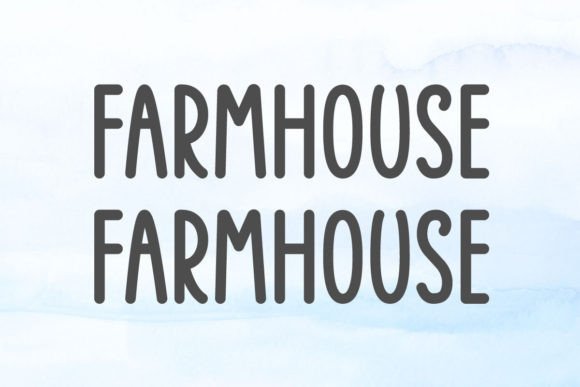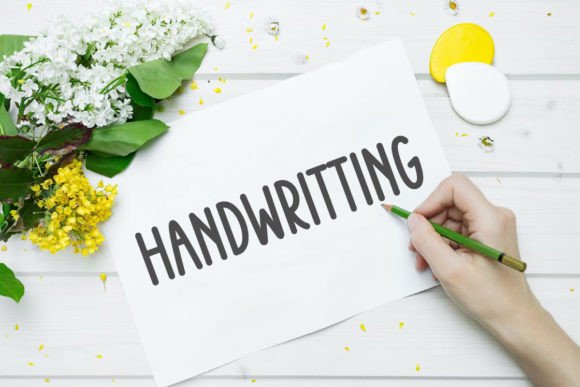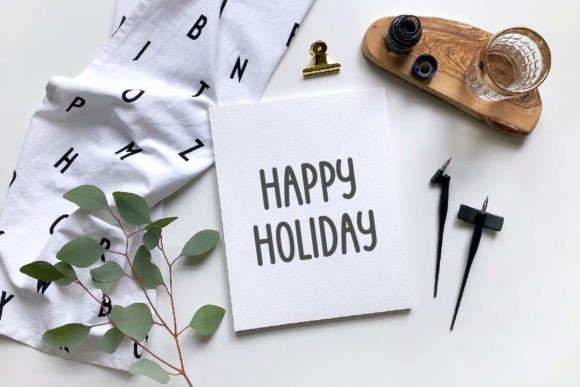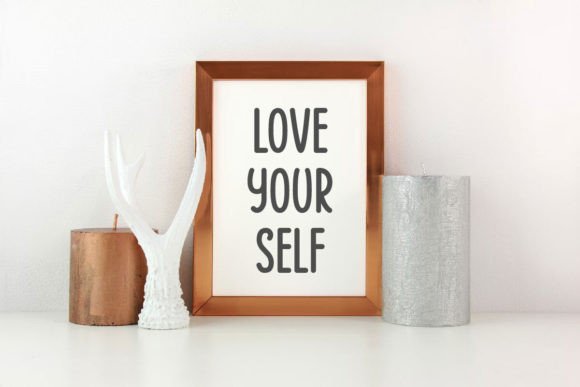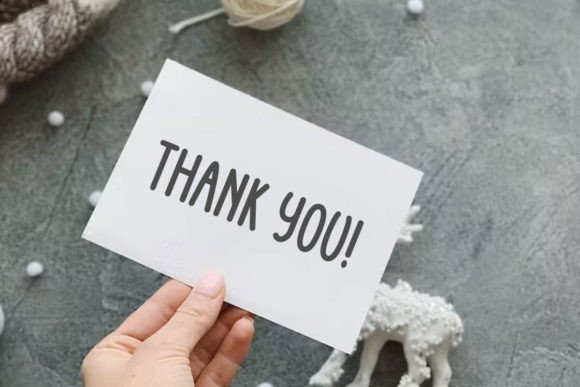
Introducing Handmade Vangance: The Perfect Minimalist Sans Serif Font for Your Design Projects
Are you a designer or crafter looking for a font that can add a touch of elegance and romance to your projects? Look no further than Handmade Vangance, a beautiful minimalist sans serif font that’s perfect for a variety of design ideas. In this article, we’ll take a closer look at the features of Handmade Vangance and explore how you can use it to elevate your designs.
What is Handmade Vangance?
Handmade Vangance is a minimalist sans serif font that’s designed to be clean, simple, and elegant. Its gentle curves and lines make it perfect for a wide range of design projects, from greeting cards and wedding invitations to gift labels, mugs, t-shirts, and more.
Key Features of Handmade Vangance
- Minimalist design: Handmade Vangance features a clean and simple design that’s perfect for modern designs.
- Sans serif: The font’s sans serif design makes it easy to read and perfect for digital and print designs.
- Gentle curves: The font’s gentle curves add a touch of elegance and romance to your designs.
- Versatile: Handmade Vangance is perfect for a wide range of design projects, from greeting cards and wedding invitations to gift labels, mugs, t-shirts, and more.
How to Use Handmade Vangance in Your Designs
Handmade Vangance is a versatile font that can be used in a variety of design projects. Here are some ideas to get you started:
Greeting Cards and Wedding Invitations
Handmade Vangance is perfect for creating beautiful greeting cards and wedding invitations. Its elegant design and gentle curves make it a great choice for formal and informal events.
Gift Labels and Tags
Add a personal touch to your gifts with Handmade Vangance. The font’s clean design and elegant curves make it perfect for gift labels and tags.
Mugs and T-Shirts
Handmade Vangance is also great for designing mugs and t-shirts. Its bold and clear design makes it easy to read, even on small items.
Quotes and Posters
Use Handmade Vangance to create inspiring quotes and posters. The font’s elegant design and gentle curves make it perfect for adding a touch of sophistication to your designs.
Why Choose Handmade Vangance?
So why choose Handmade Vangance for your design projects? Here are just a few reasons:
- Unique and elegant design: Handmade Vangance features a unique and elegant design that’s sure to stand out.
- Versatile: The font is perfect for a wide range of design projects, from greeting cards and wedding invitations to gift labels, mugs, t-shirts, and more.
- Easy to read: The font’s clean design and gentle curves make it easy to read, even on small items.
- Adds a joyful and romantic touch: Handmade Vangance adds a joyful and romantic touch to each of your projects, making it perfect for special occasions.
In conclusion, Handmade Vangance is a beautiful minimalist sans serif font that’s perfect for a wide range of design projects. Its elegant design, gentle curves, and versatility make it a great choice for designers and crafters looking to add a touch of sophistication and romance to their designs. Whether you’re creating greeting cards, wedding invitations, gift labels, mugs, t-shirts, or quotes, Handmade Vangance is the perfect font for your next project.